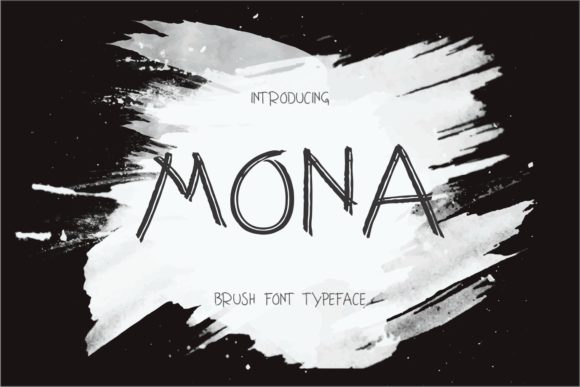
**Introducing Mona: The Brush-Stroke Masterpiece That Will Make Your Designs Dance**
In the realm of typography, where letters take on lives of their own, there exists a font that defies convention and captivates the senses—Mona. A brush-styled masterpiece, Mona's every stroke is a testament to the artistry of its creator, ed.creative.
Prepare yourself to be mesmerized as Mona's fluid lines dance across your designs, painting a picture of creativity that will leave an unforgettable mark. This display font is not just a collection of letters; it's a brushstroke symphony, where each glyph is a stroke of genius.
Mona is more than just a font—it's an invitation to unleash your imagination and let your designs soar to new heights. Its unique and eye-catching style will transform your creations into works of art, leaving a lasting impression that will resonate with your audience.
Whether you're crafting captivating headlines that demand attention or designing logos that exude sophistication, Mona is your indispensable companion. Its versatility knows no bounds, making it the perfect choice for a wide range of design projects.
With Mona at your fingertips, your designs will radiate a charm that is both timeless and contemporary. It's a font that will elevate your creations, adding a touch of magic that will leave your audience spellbound.
Embrace Mona today and experience the transformative power of brushstrokes that ignite your creativity. Let your designs dance to its enchanting rhythm and discover a world where typography transcends the ordinary and becomes an expression of pure artistry.